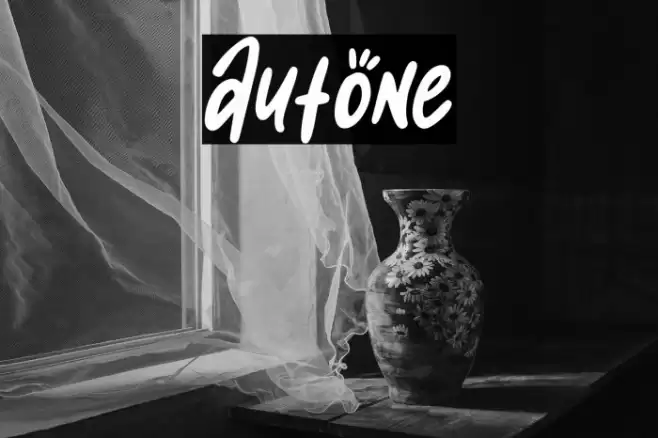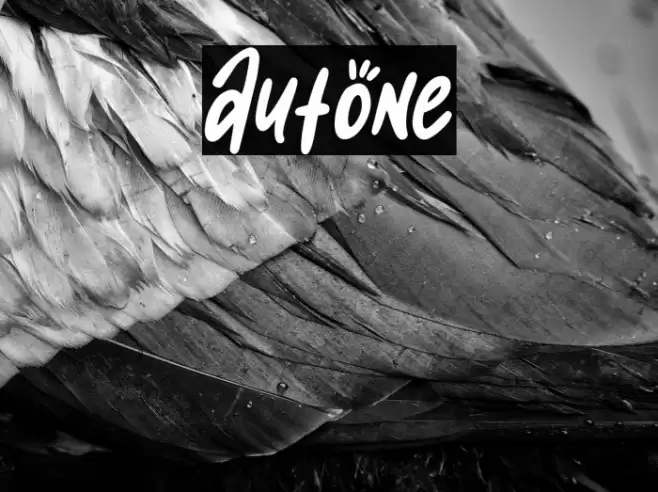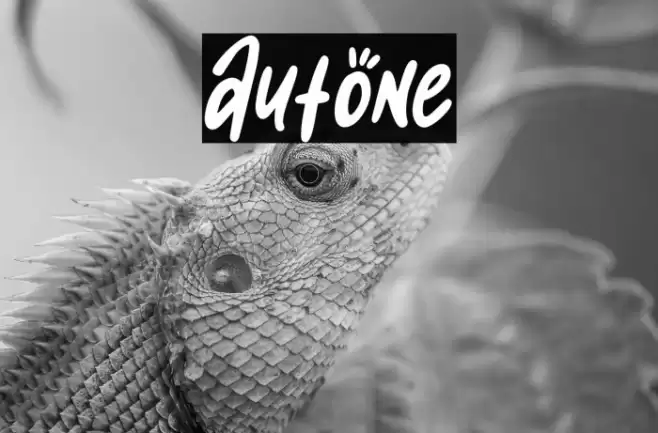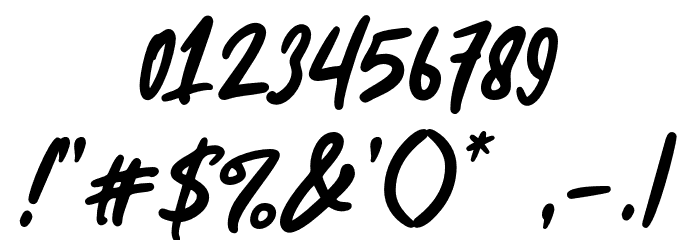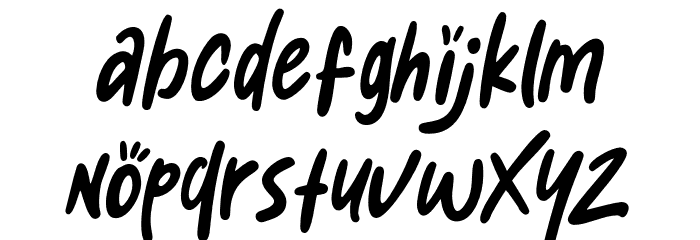
Autone Font
Autone Description
This font features a bold, energetic script style with a handwritten feel. The letters are slightly slanted, giving a dynamic and informal appearance. The uppercase letters are tall and expressive, while the lowercase letters maintain a consistent flow, enhancing readability. The numerals are equally bold, matching the overall style of the alphabet. Special characters are creatively integrated, maintaining the font's lively aesthetic. The strokes are thick and consistent, contributing to a strong visual impact.
A bold, dynamic script font with a handwritten style.
- Proposed Projects: Ideal for branding projects, social media graphics, posters, and invitations where a personal and energetic touch is desired.